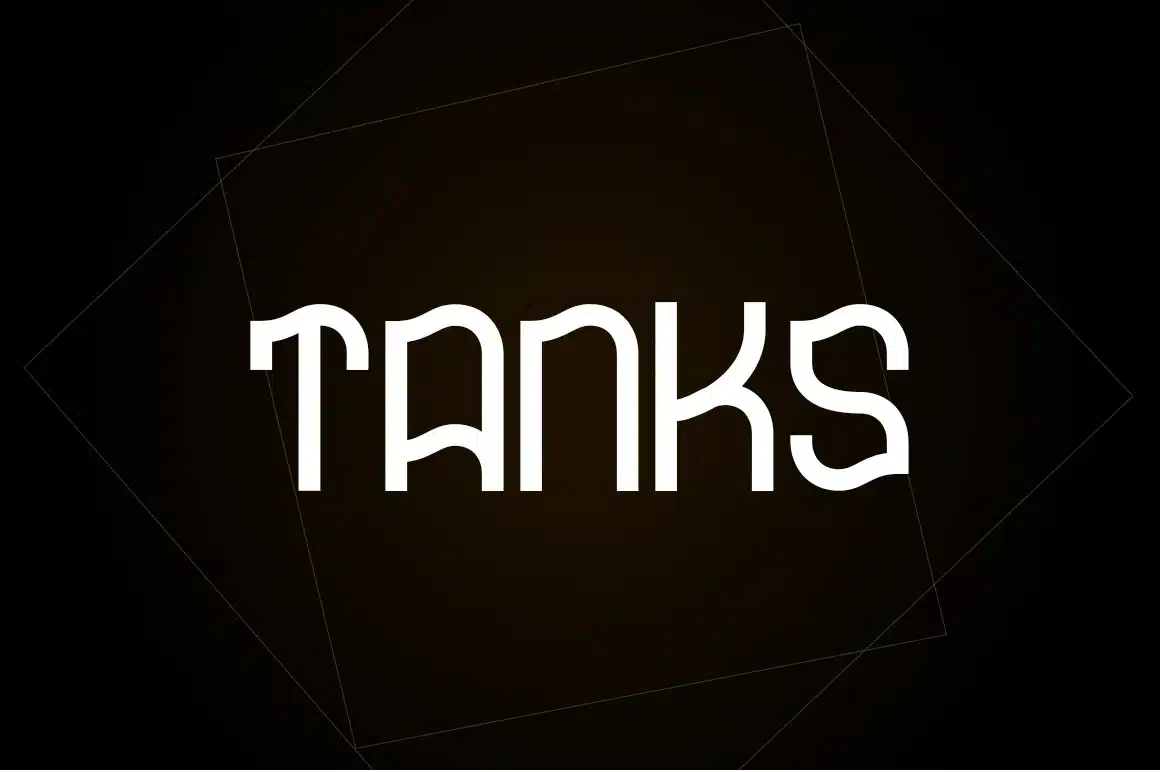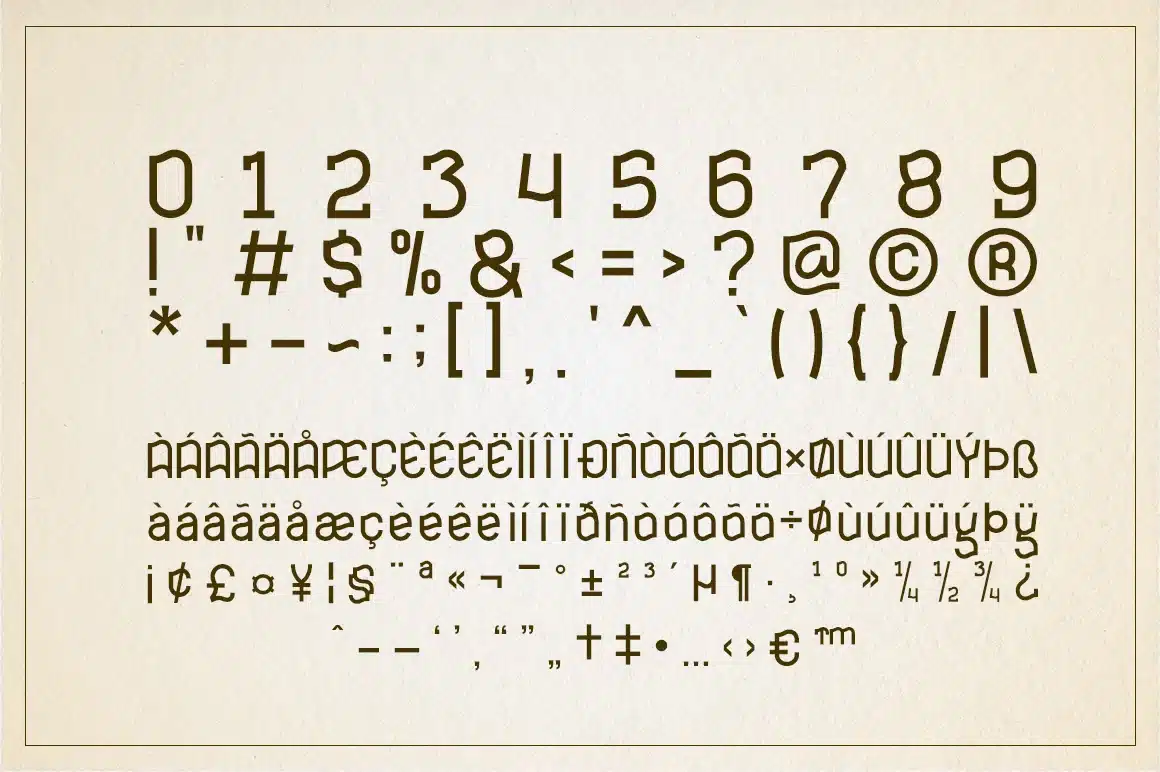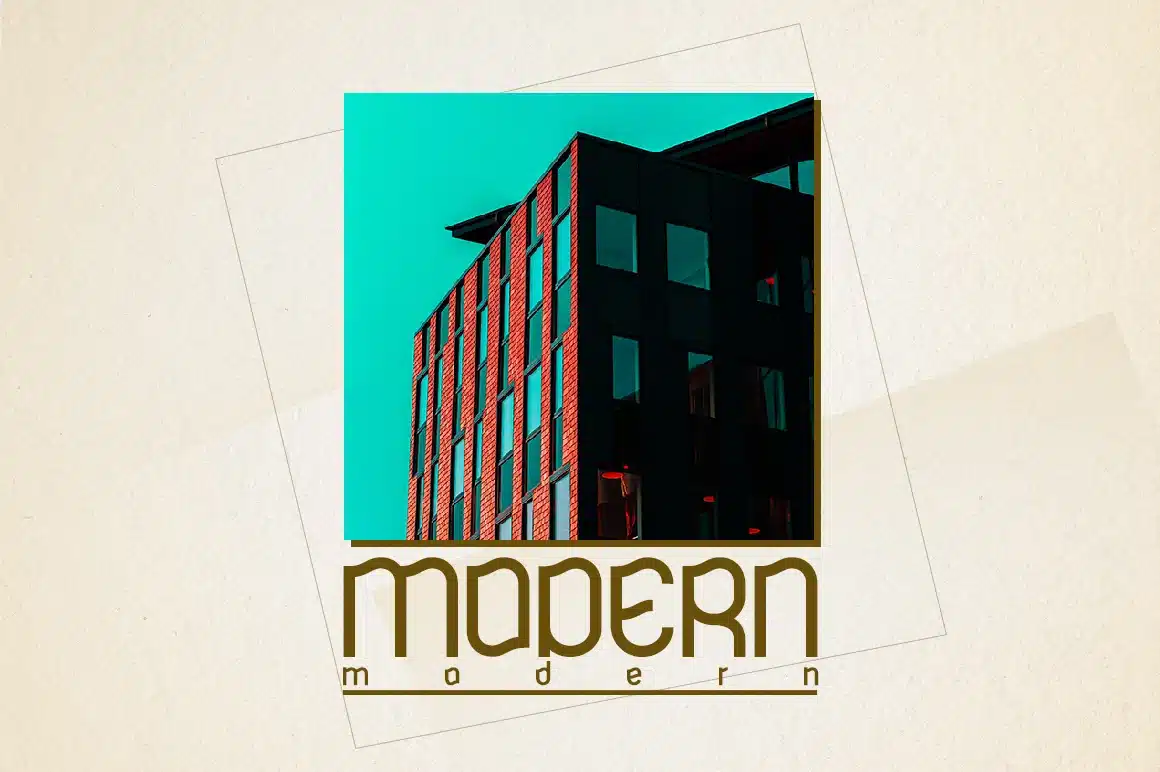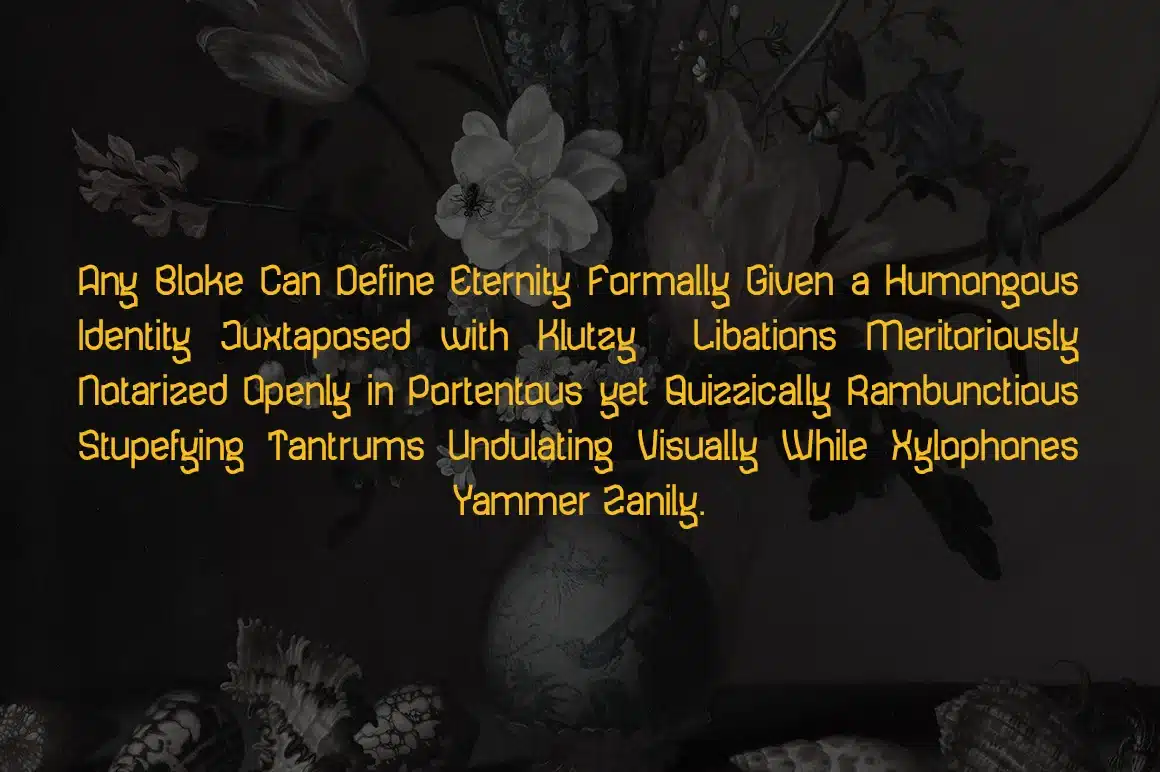
GEOSTARS Font
GEOSTARS is a Display font with Vintage Art style, Perfect for element designs, events, t-shirts, logos, badges, stickers and awesome work, etc...